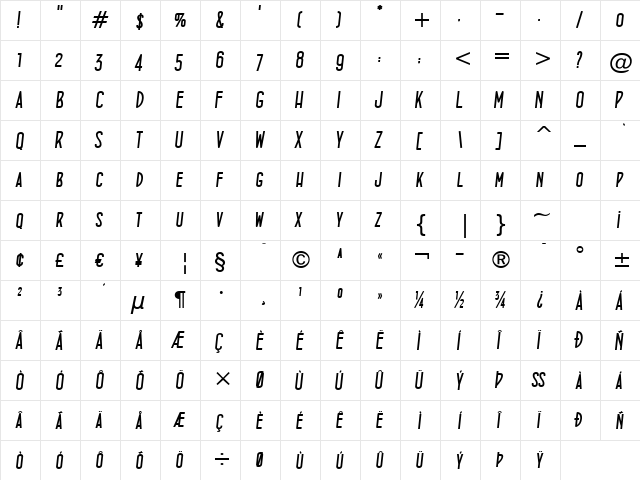
ConcursoItalian BTN BoldOblique
Design Context for ConcursoItalian BTN Typeface
ConcursoItalian BTN takes a measured approach to typography — its balanced proportions and neutral character make it a reliable workhorse for both digital and print work. The slanted form adds forward momentum and visual energy. Its bold stroke weight gives it real presence on the page.
Pro Tip: Use ConcursoItalian BTN for emphasis, pull quotes, and subheadings where its slanted energy can add rhythm to the layout.